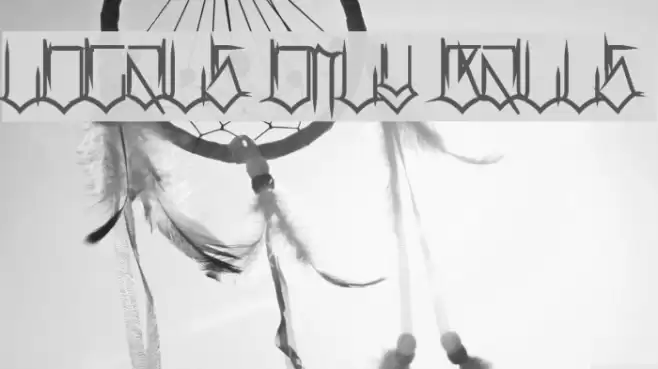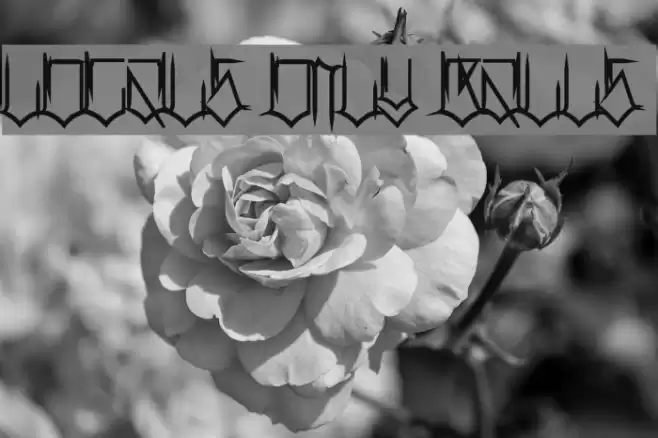
Locals Only Balls Font
Locals Only Balls Description
This font features a highly decorative and intricate design, characterized by sharp, angular lines and pointed edges. Each letter is crafted with a unique blend of gothic and modern elements, creating a striking visual impact. The uppercase letters are particularly elaborate, with extended vertical strokes and geometric shapes that interlock seamlessly. The lowercase letters maintain the same stylistic approach, ensuring consistency throughout the typeface. The numerals and special characters are equally detailed, making them suitable for attention-grabbing designs. This font is ideal for projects that require a bold and edgy aesthetic, such as album covers, posters, or branding for alternative or avant-garde products.
A decorative font with sharp, angular lines and a gothic-modern fusion from Graffiti fonts.
- Proposed Projects: Album covers, posters, alternative branding, avant-garde designs.
- Character Spacing: Tight
- Overall Style: Modern Gothic